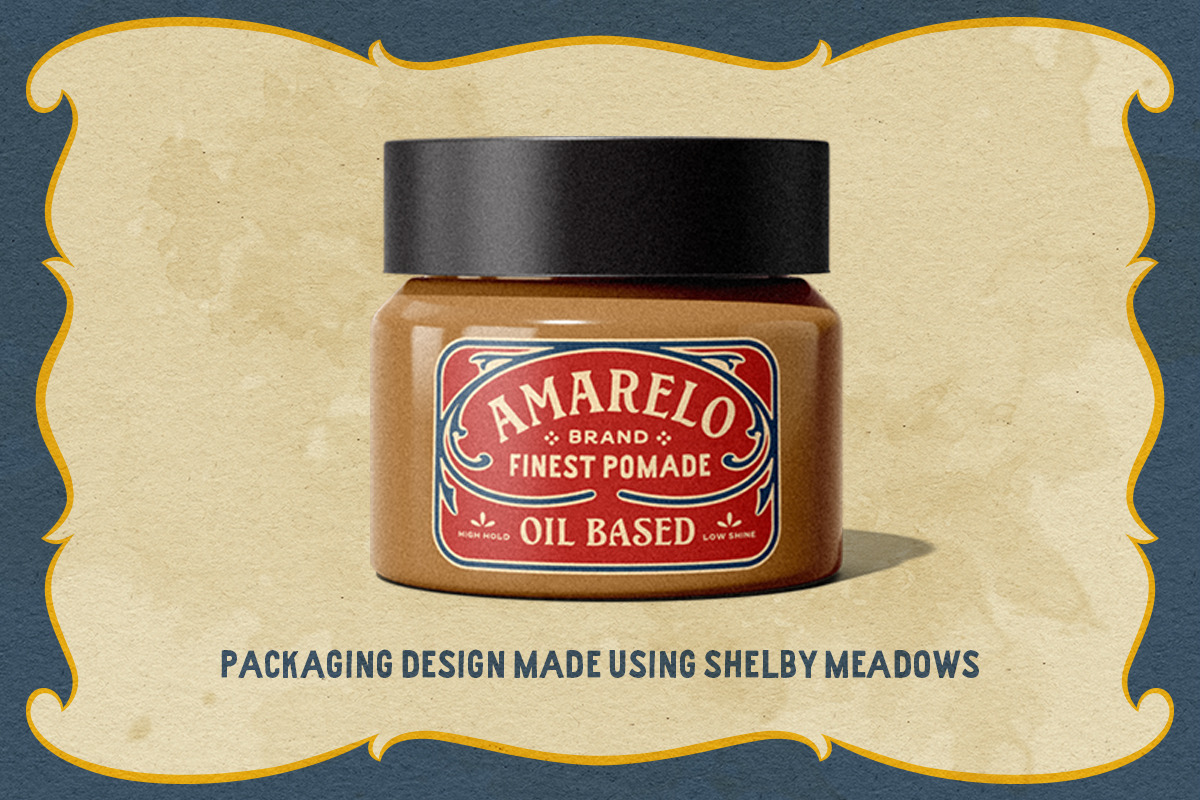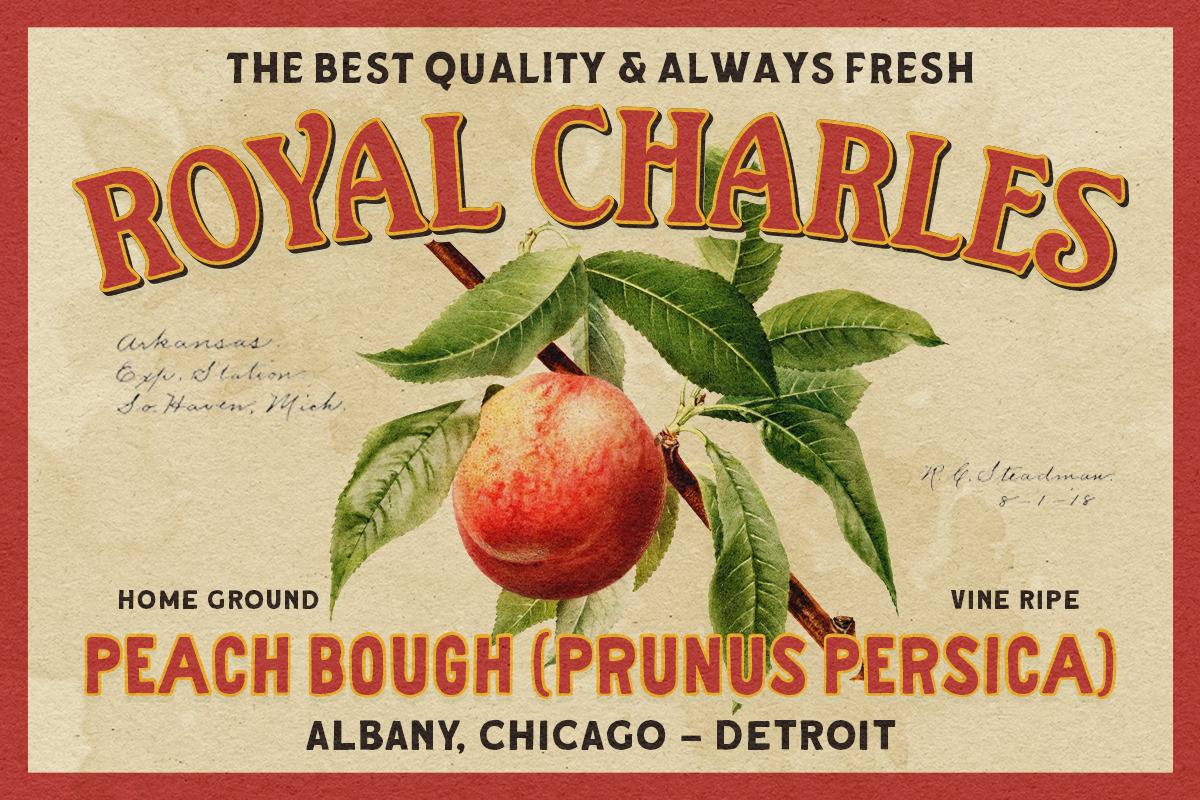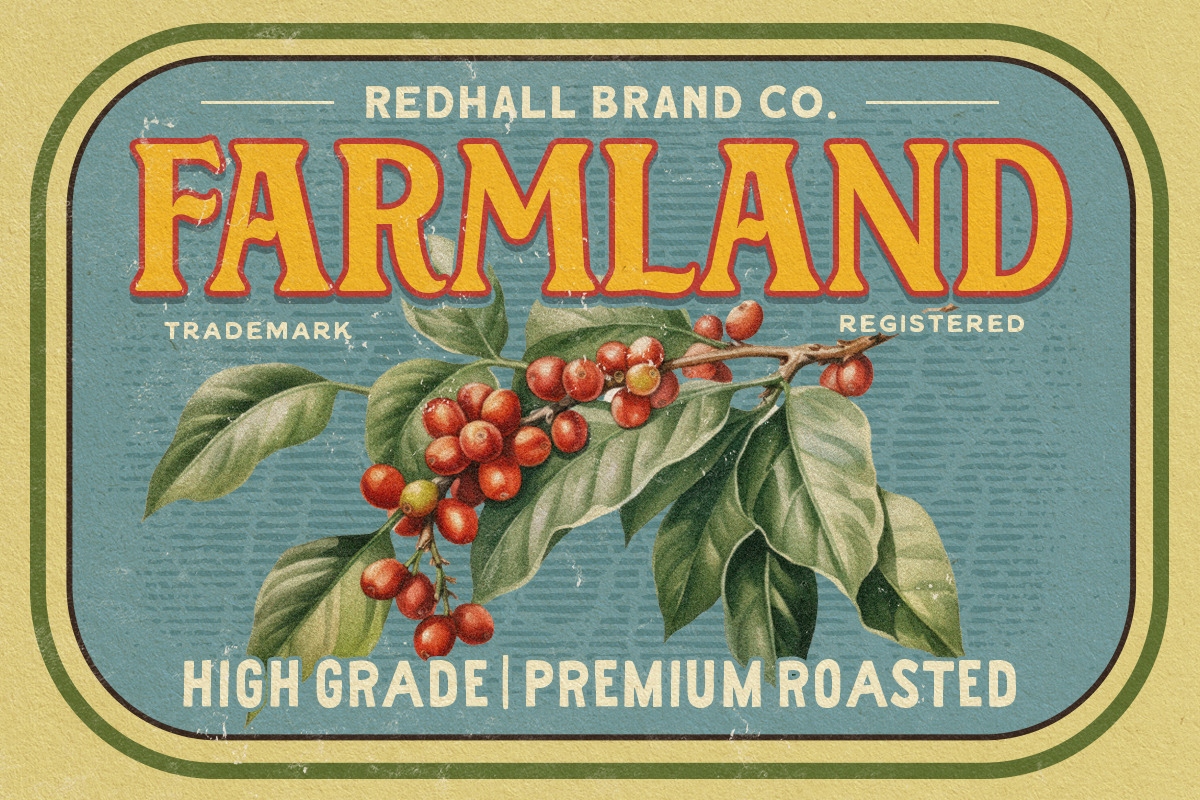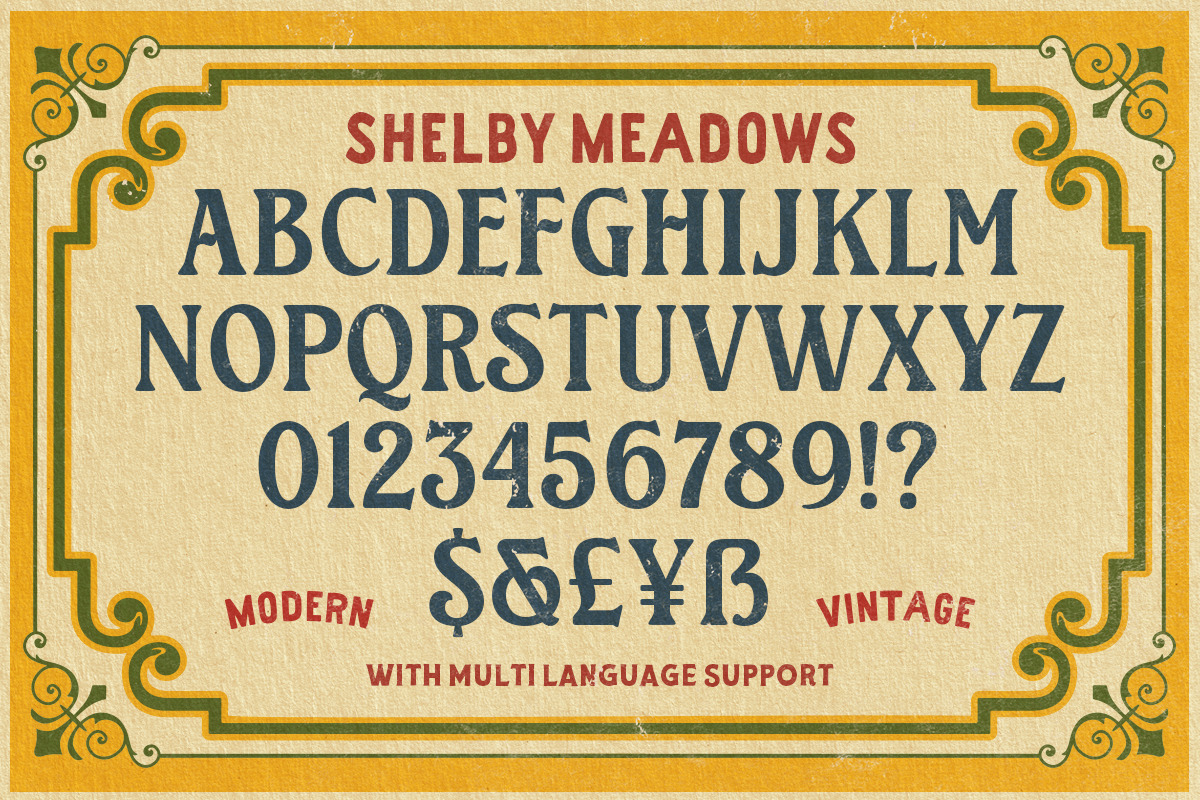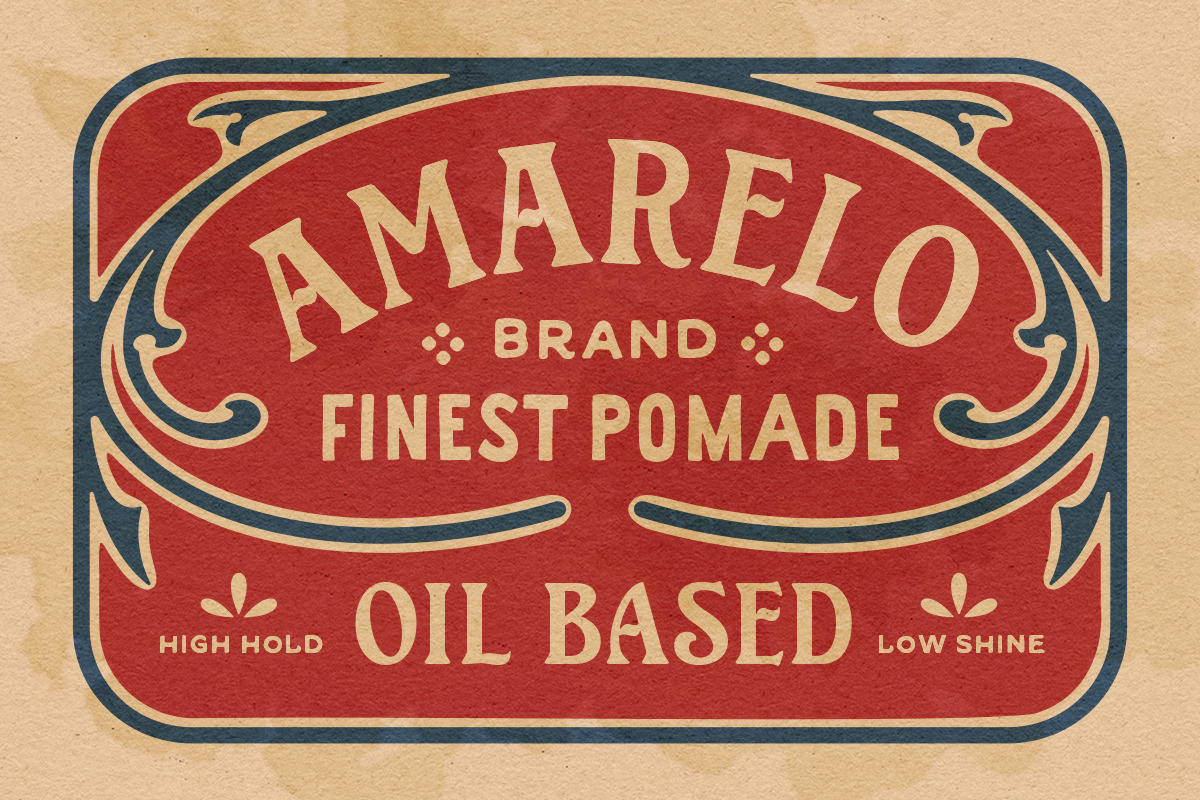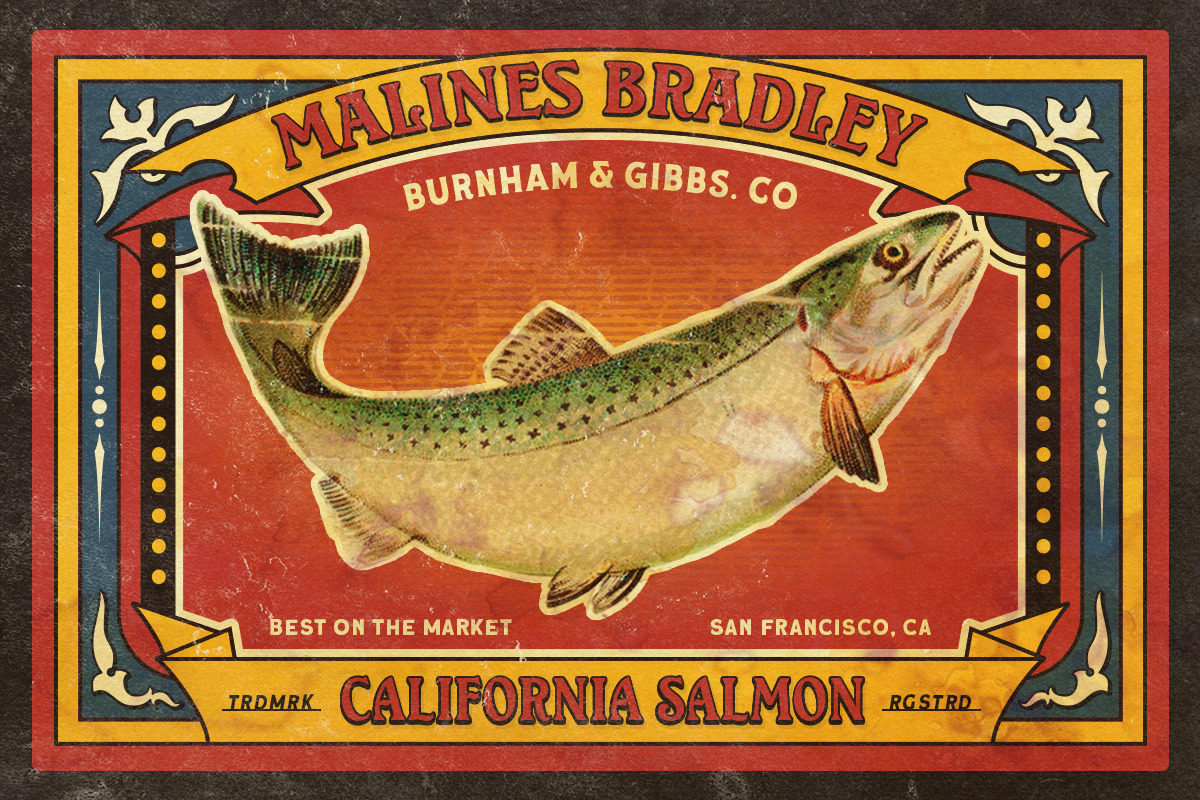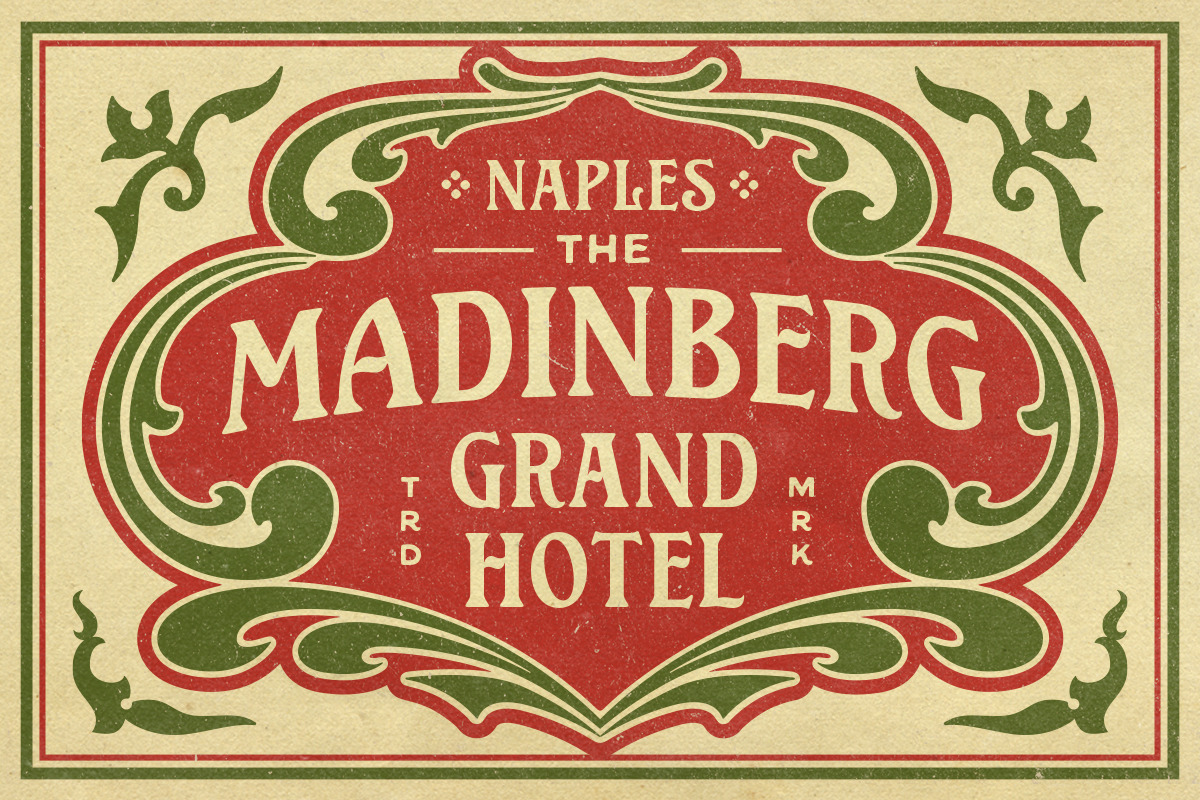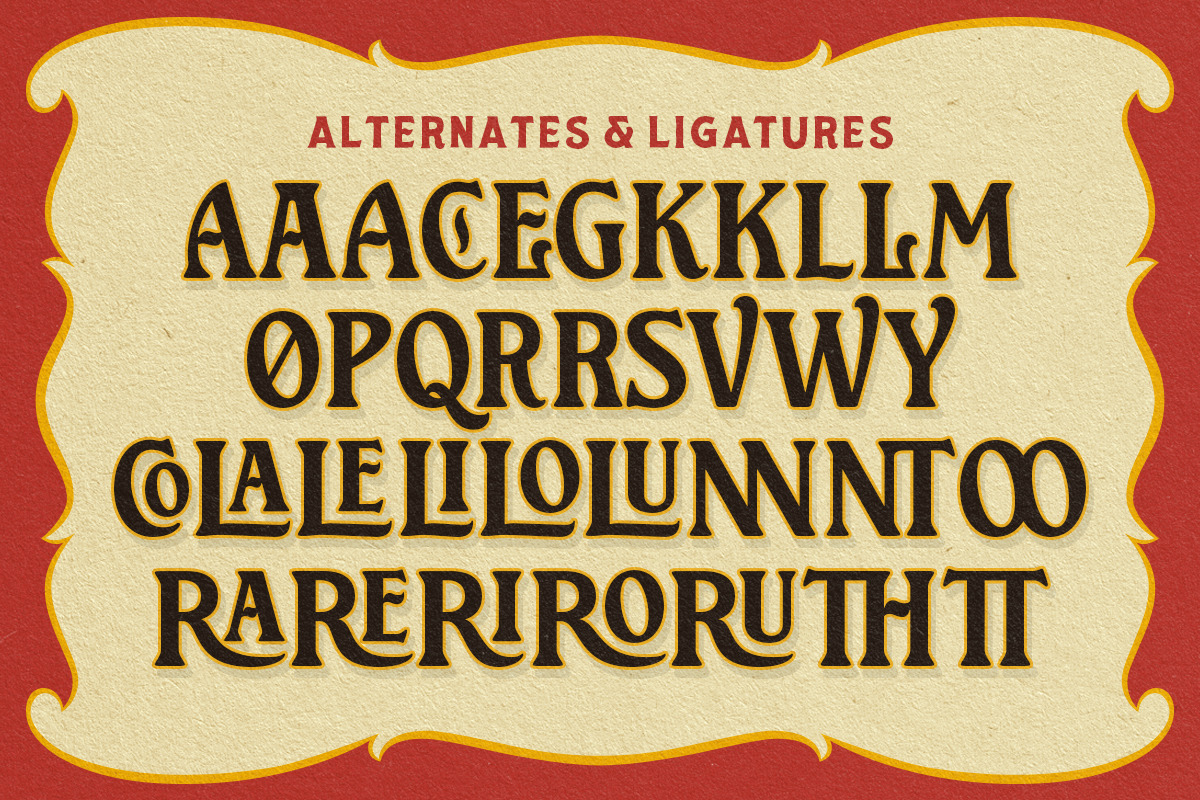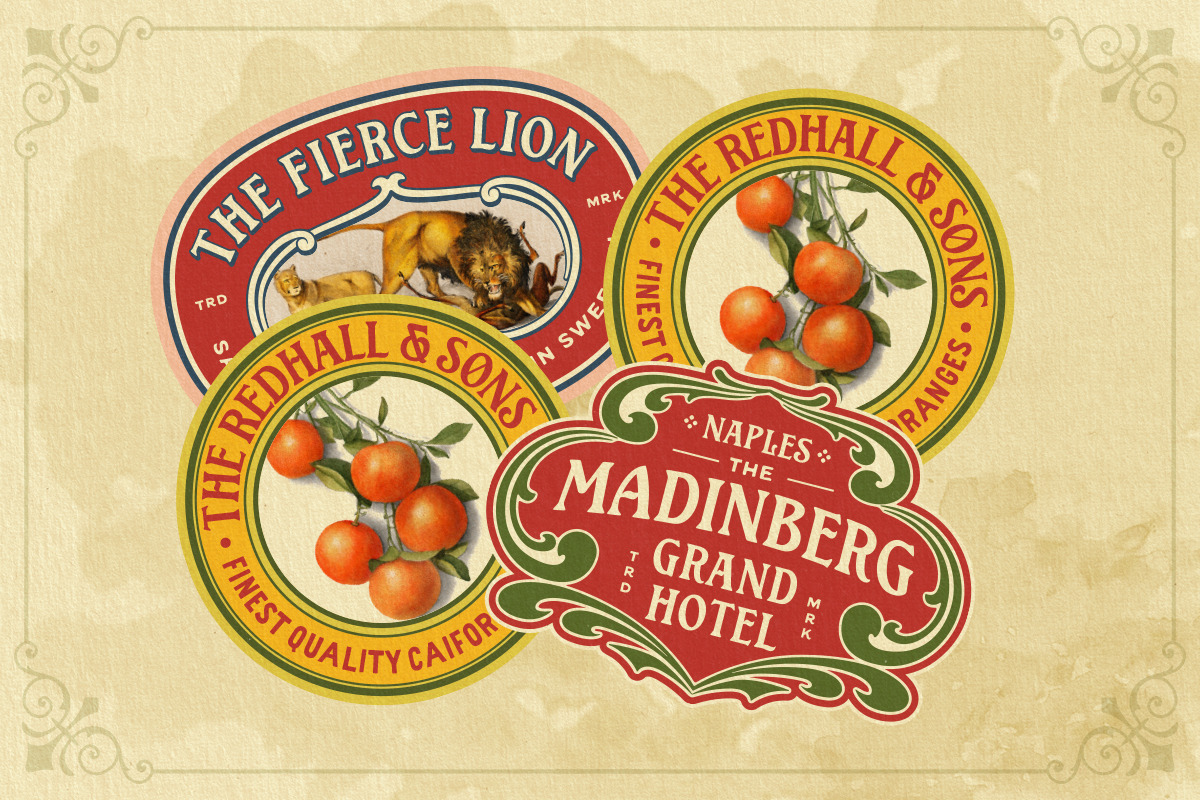
IC Shelby Meadows - Display Serif
IC Shelby Meadows, a powerful modern serif font inspired by vintage type with carefully crafted. This typefaces is perfect for people looking for vintage aesthetic. Suitable for any graphic designs such as branding materials, t-shirt, print, logo, poster, t-shirt, quotes .etc